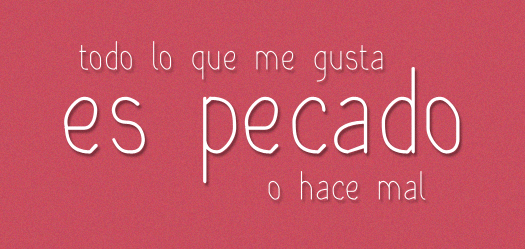
Font name: | Rara Dolor |
Author: | Fabiane Lima |
Note by Fabiane Lima | |
Complete family! Name based on some musics of the uruguayan band "El Cuarteto de Nos". |